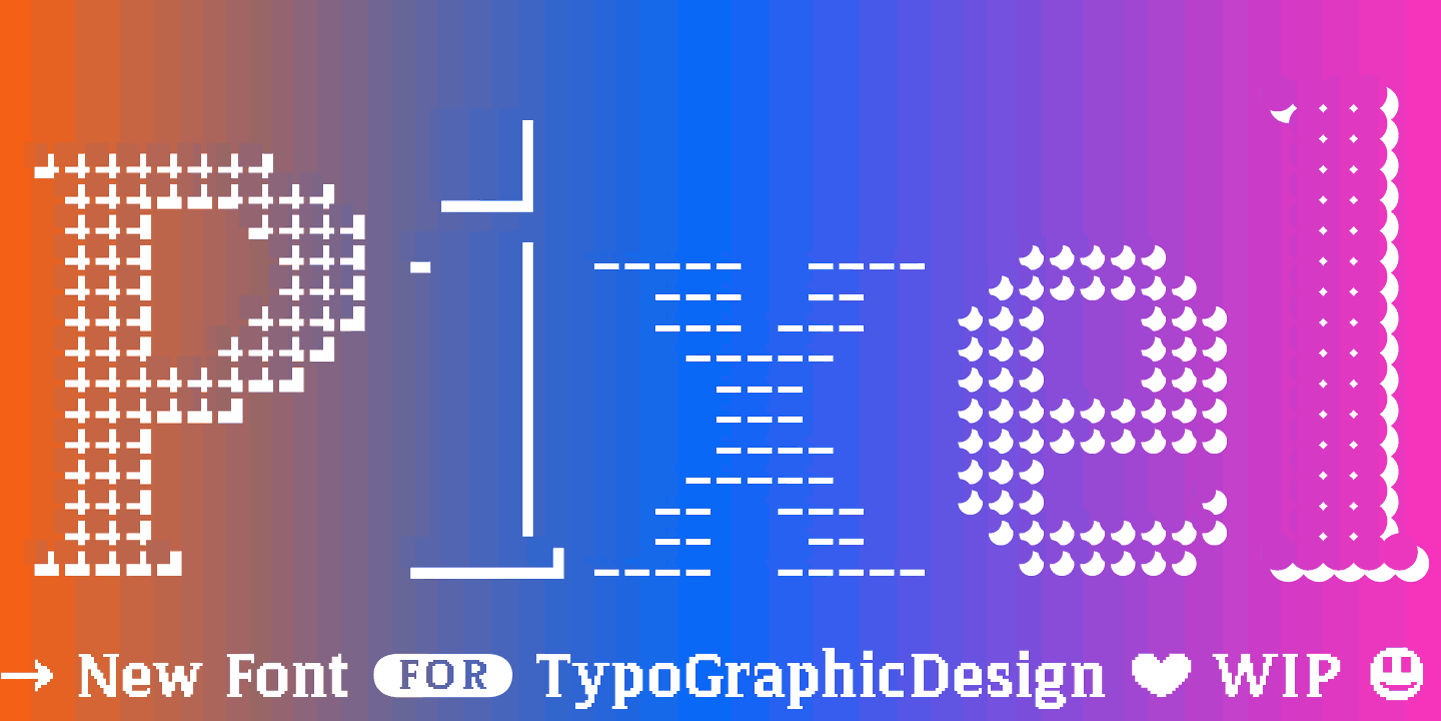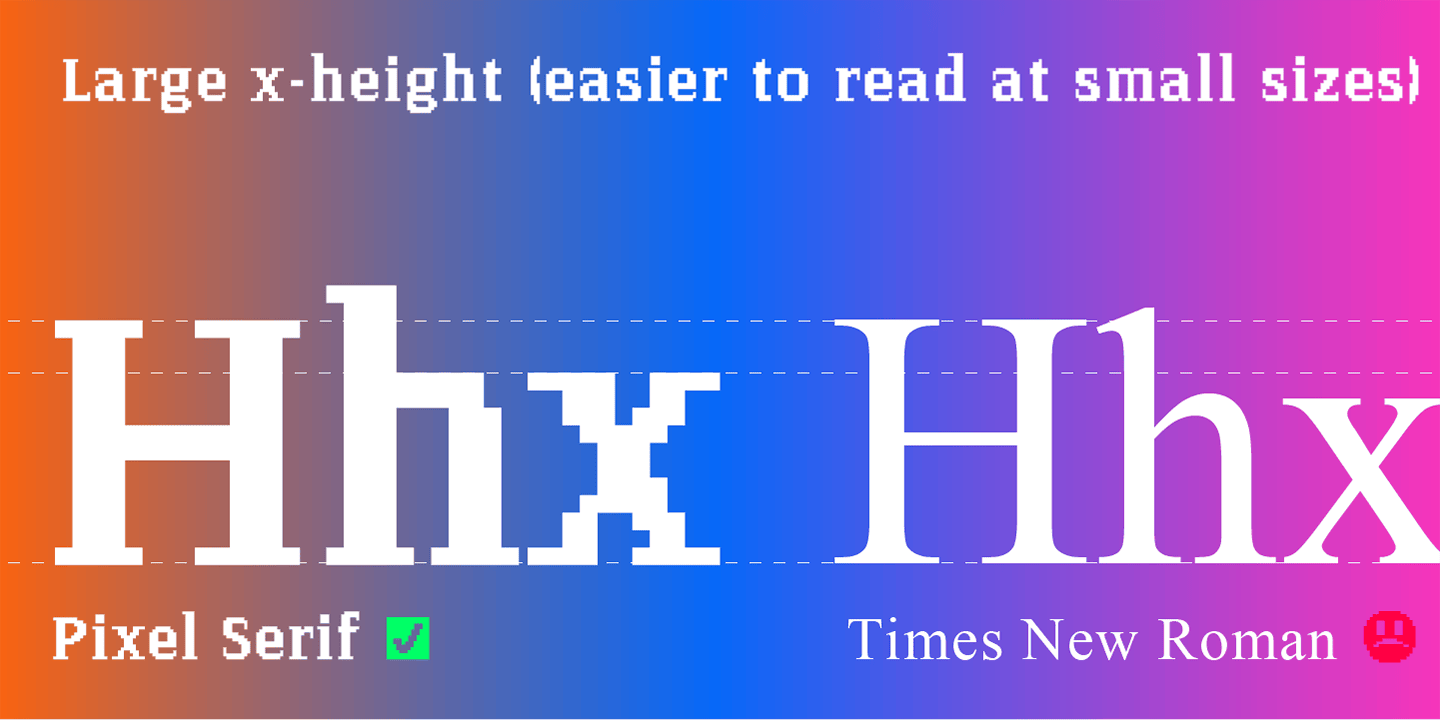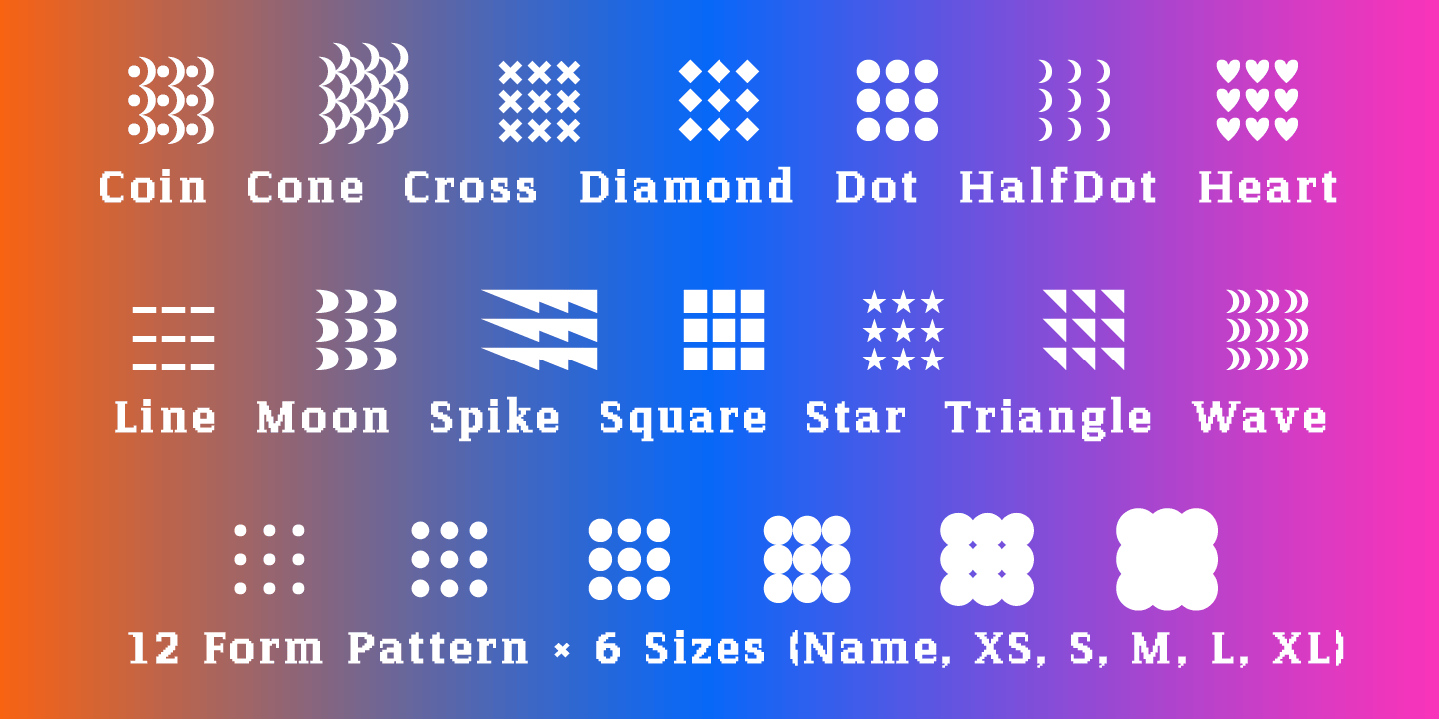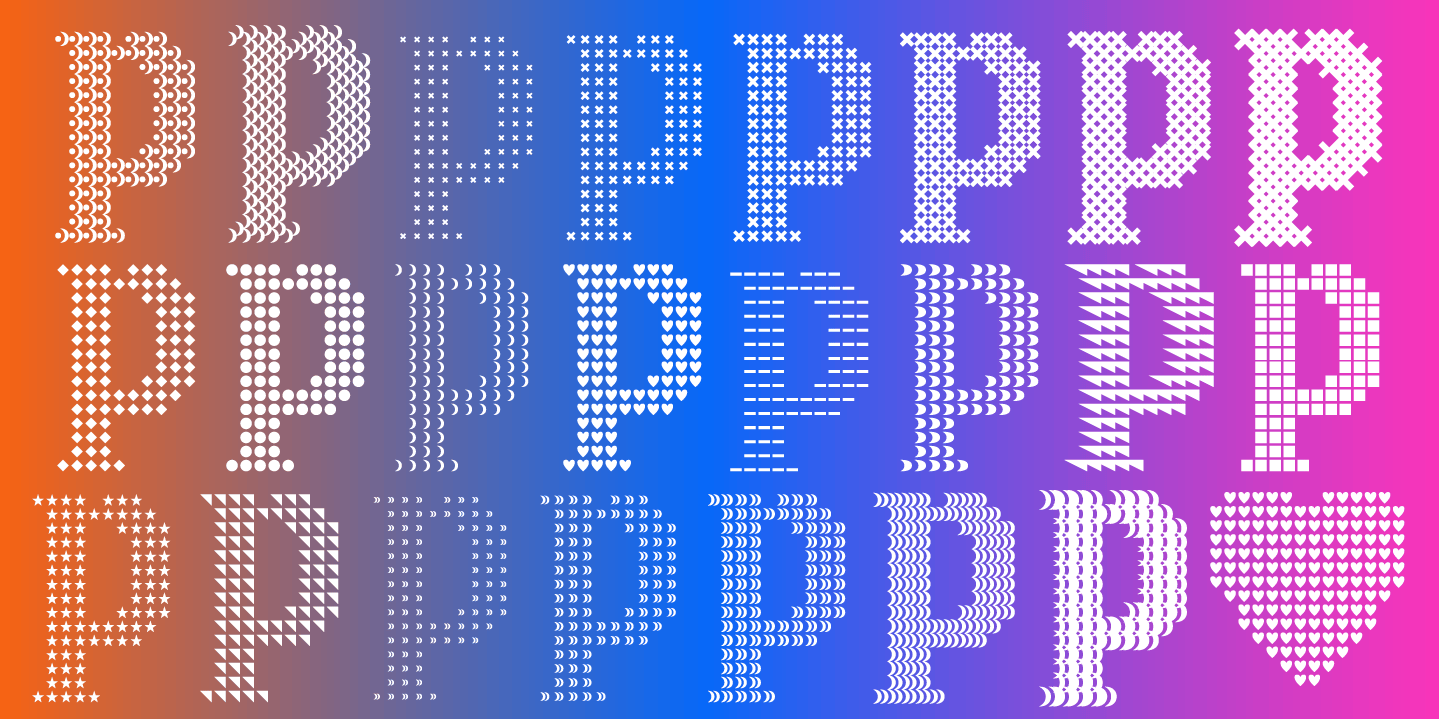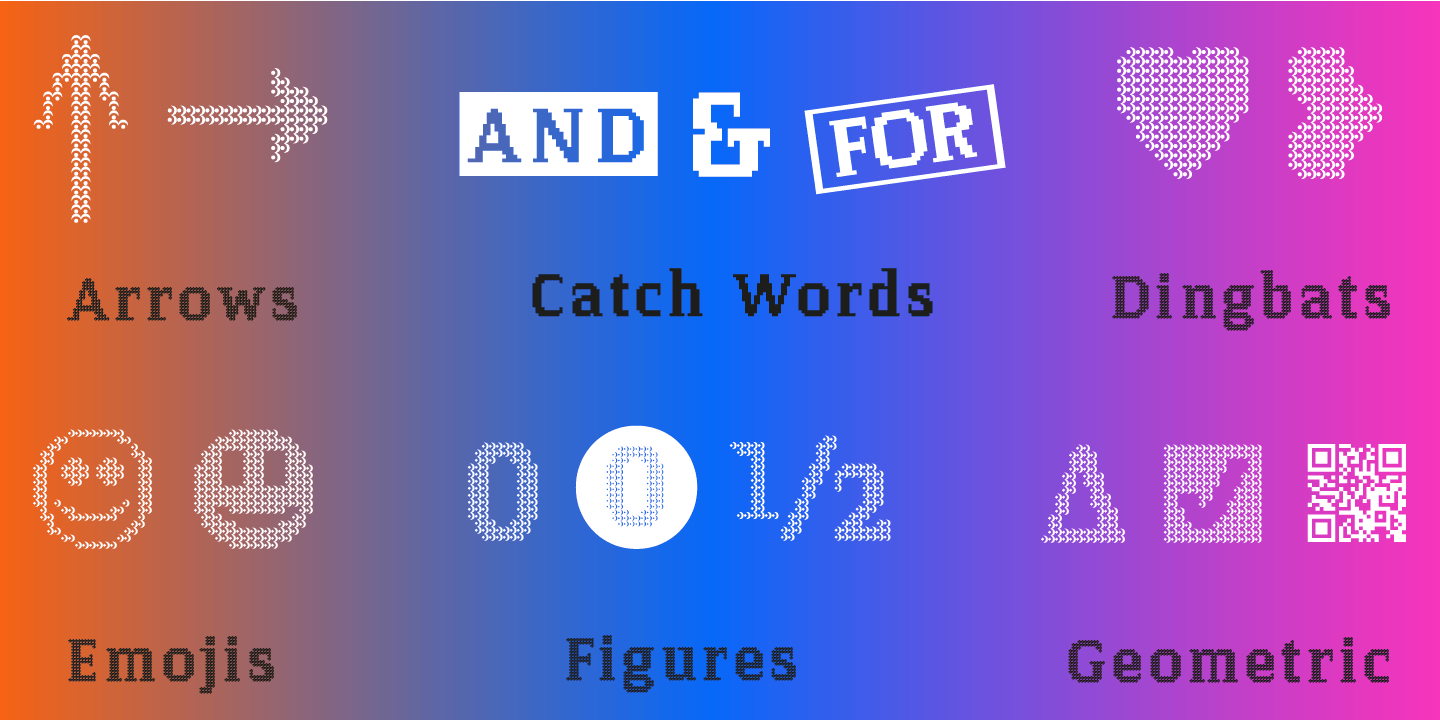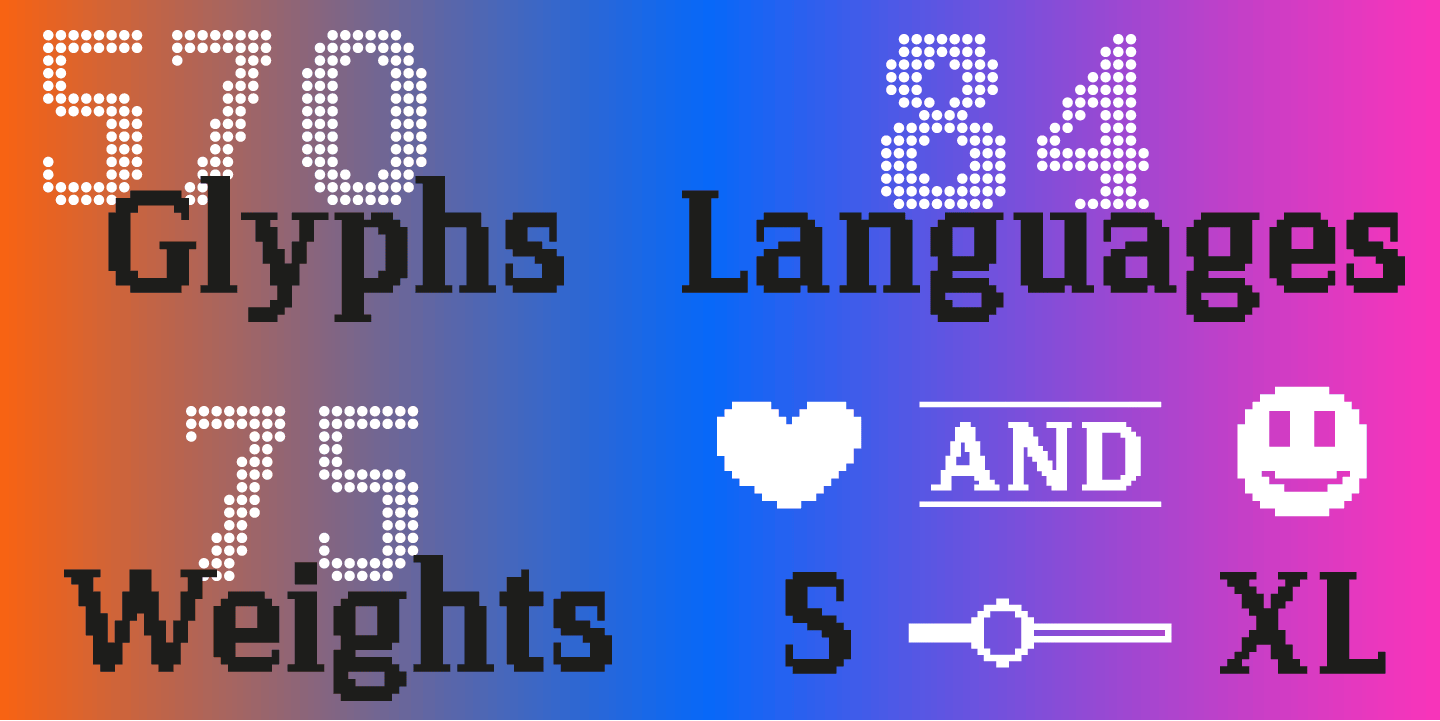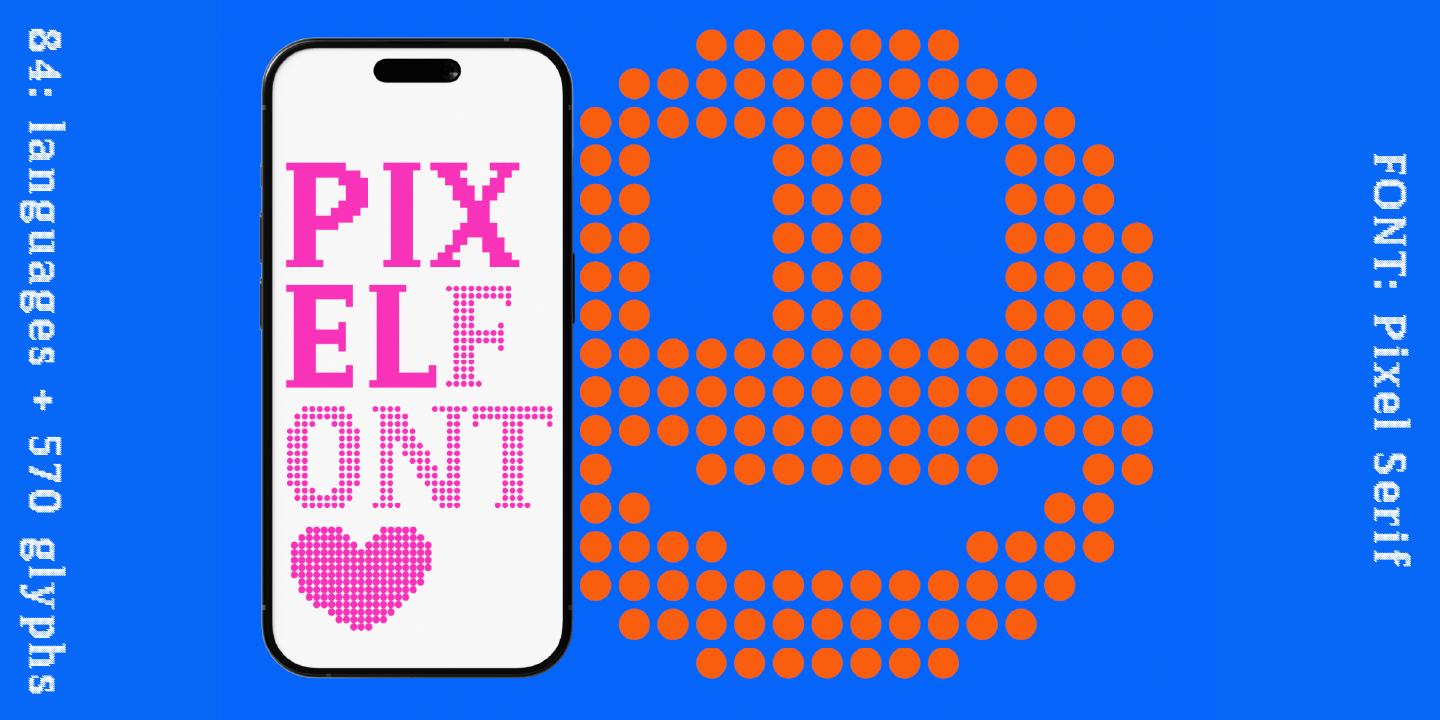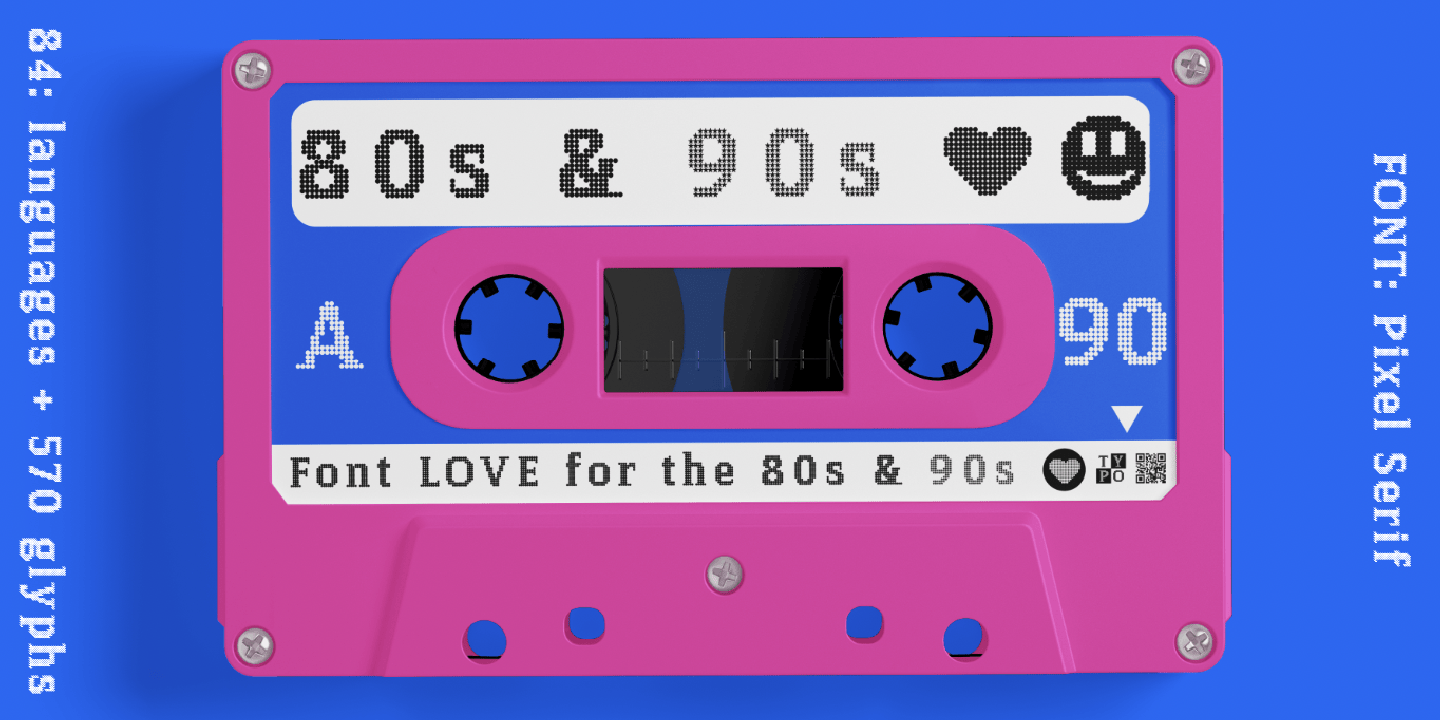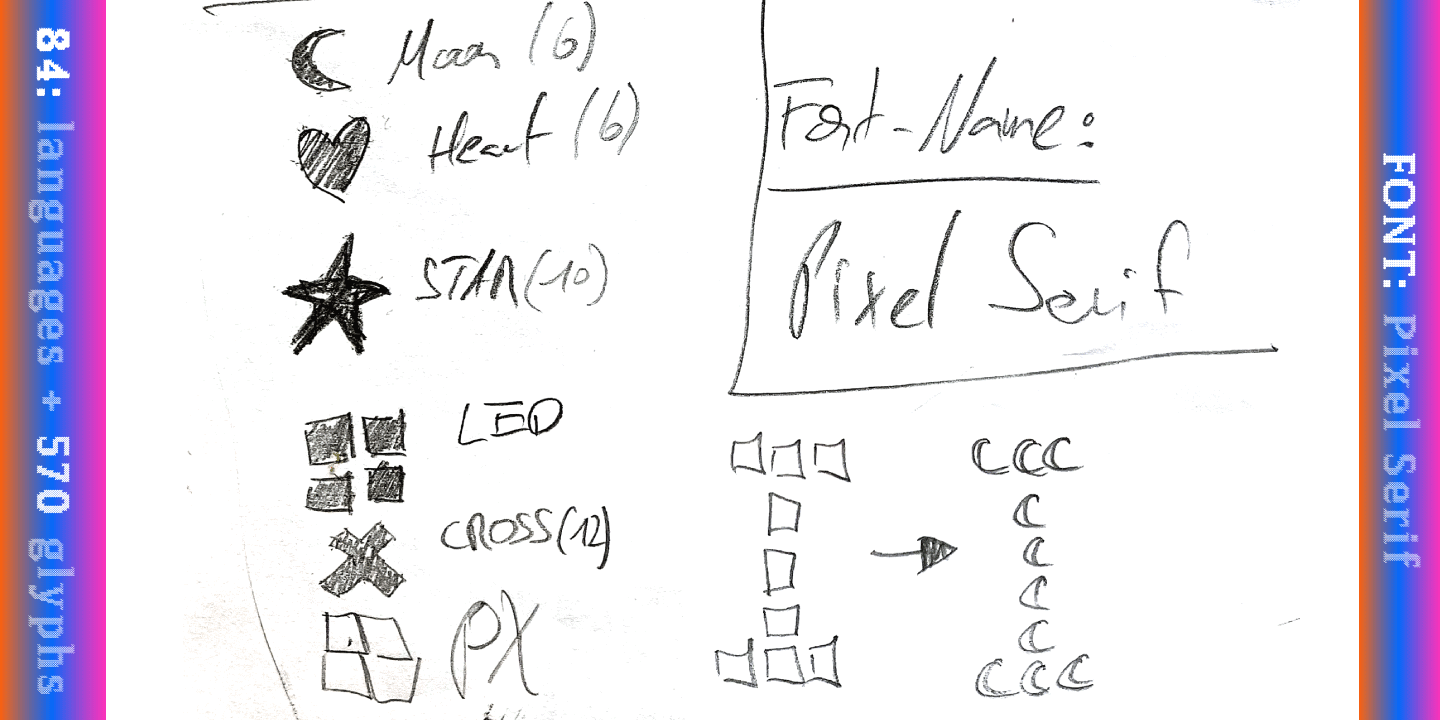
The typeface Pixel Serif is designed as a flexible system of modular geometric shaps from 2025–2026 for the font foundry Typo Graphic Design by the type designer Manuel Viergutz.
75 font-styles (Coin, Cone, Cross, Diamond, Dot, HDot, Heart, Line, Moon, Spike, Square, Star, Triangle, Wave (12+2 Form Pattern × 6 Sizes: Name, XS, S, M, L, XL)) with 570 glyphs (Adobe Latin 3) for 84 languages incl. decorative extras like icons, arrows, catch words, dingbats, emojis, symbols, geometric shapes (type the word #LOVE for ❤ as OpenType-Feature dlig) and stylistic alternates (2 stylistic sets). 23 OpenType features.
The large font range offers an enormous number of design options. For use in logos, packaging for drinks & food, magazines, posters, advertisement plus as webfont for decorative headlines. The font works best for display size.